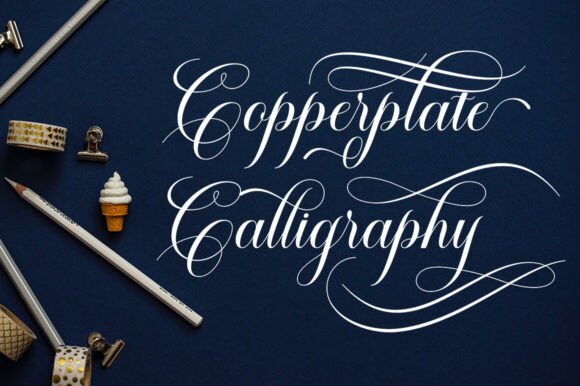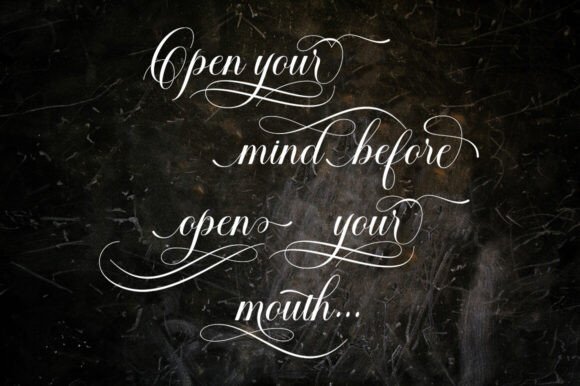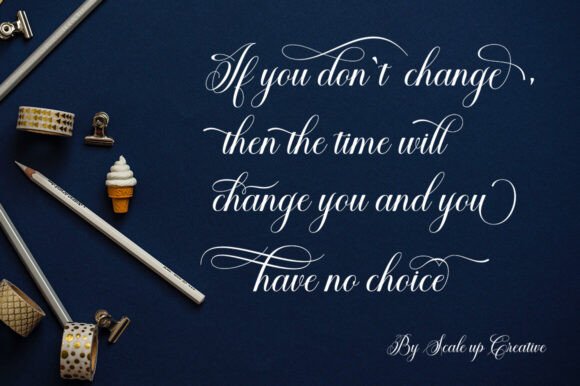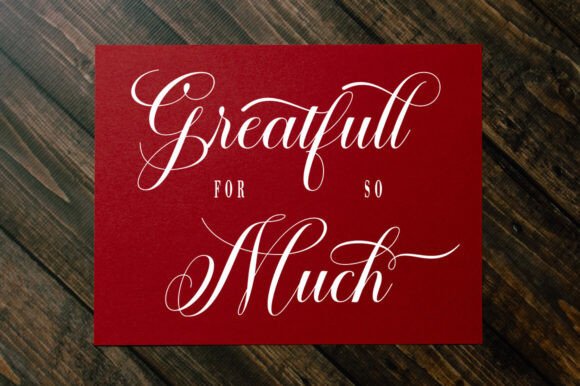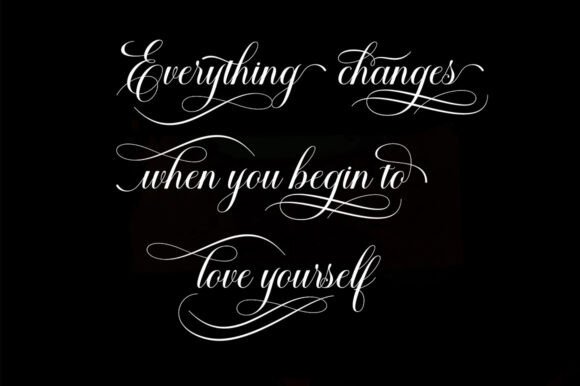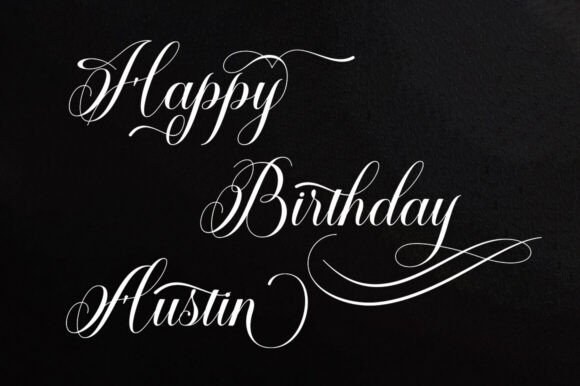
The Elegance of Brayline Font: A Designer’s Delight
I still remember the design project that led me to discover the stunning Brayline Font. I was working on a luxury brand’s invitation suite, and I needed a font that exuded elegance, sophistication, and glamour. After hours of scouring font libraries, I stumbled upon Brayline, and it was love at first sight! ✨ In this article, I’ll share my experience with this exquisite calligraphy script font, its features, and how to make the most of it in your designs.
• ✨ Exquisite changeable characters that add a touch of uniqueness to any design
• ✅ Smooth, clean, and elegant lines that scream luxury and sophistication
• 💁‍♀️ Feminine, sensual, and glamorous feel that’s perfect for high-end brands
• 📚 Simple and very easy to read, making it versatile for various design applications
While Brayline Font is a stunning addition to any design project, there are a few things to keep in mind: 🤔
• ⚠️ Some users may find the font overwhelming due to its extensive features and character set
The Backstory of Brayline Font
Brayline Font was designed with the intention of creating a classic, decorative copper script with a modern twist. The designer aimed to craft a font that would exude elegance, sophistication, and glamour, while still being easy to read and versatile enough for various design applications.
Q: Is Brayline Font suitable for body text?
A: While Brayline Font is elegant and easy to read, it’s primarily designed for display purposes. For body text, consider using a font with better legibility and readability.